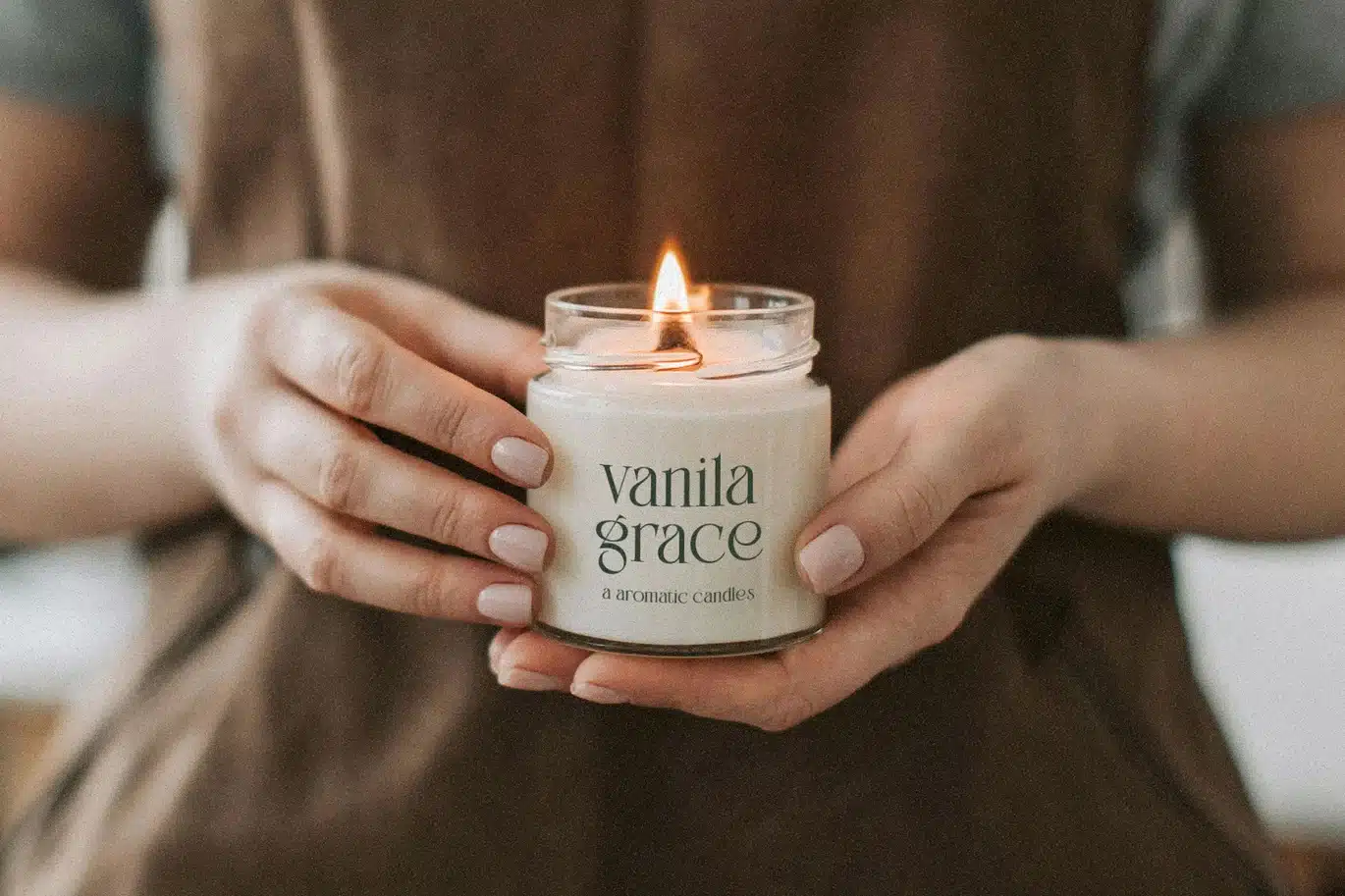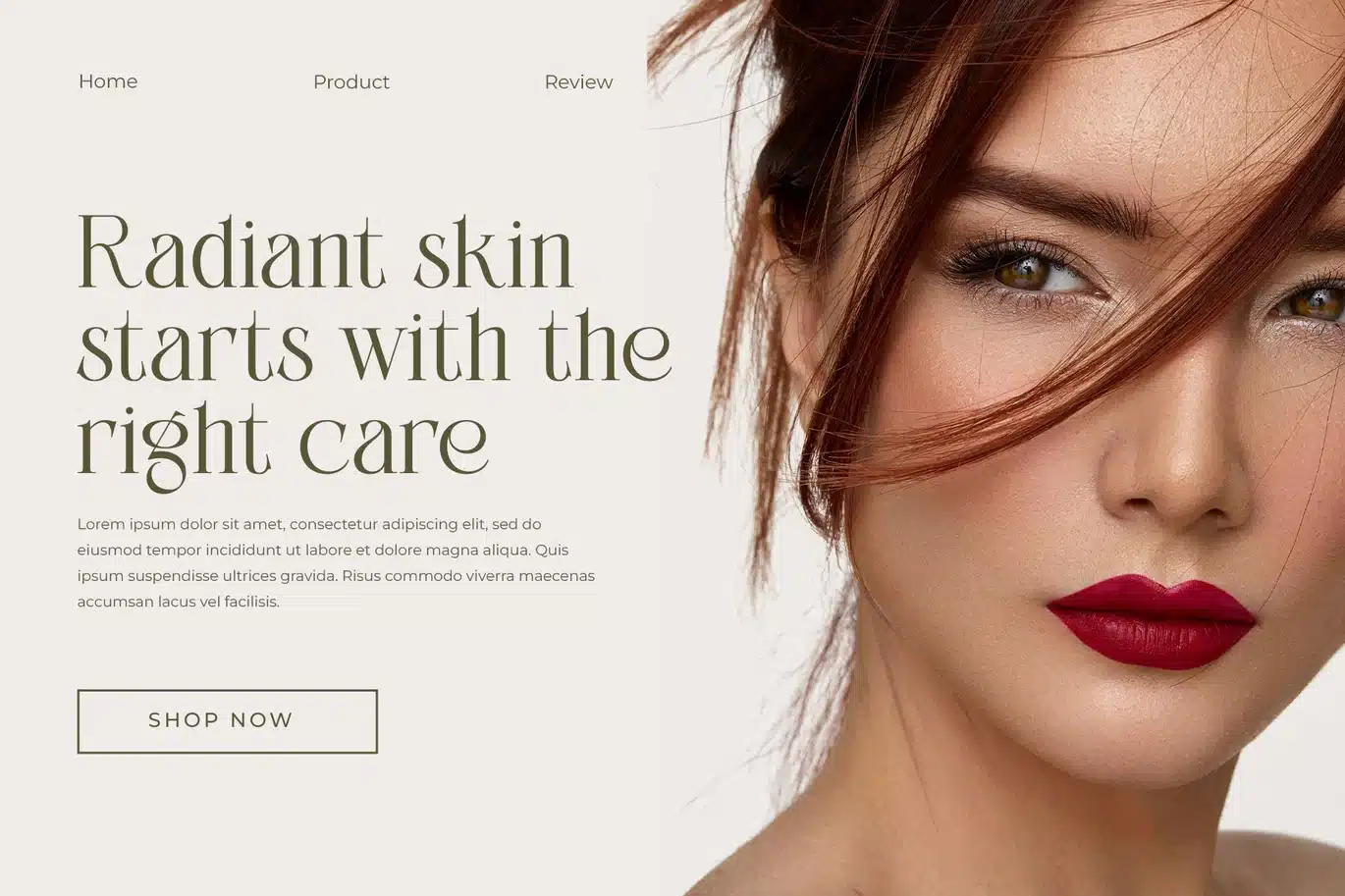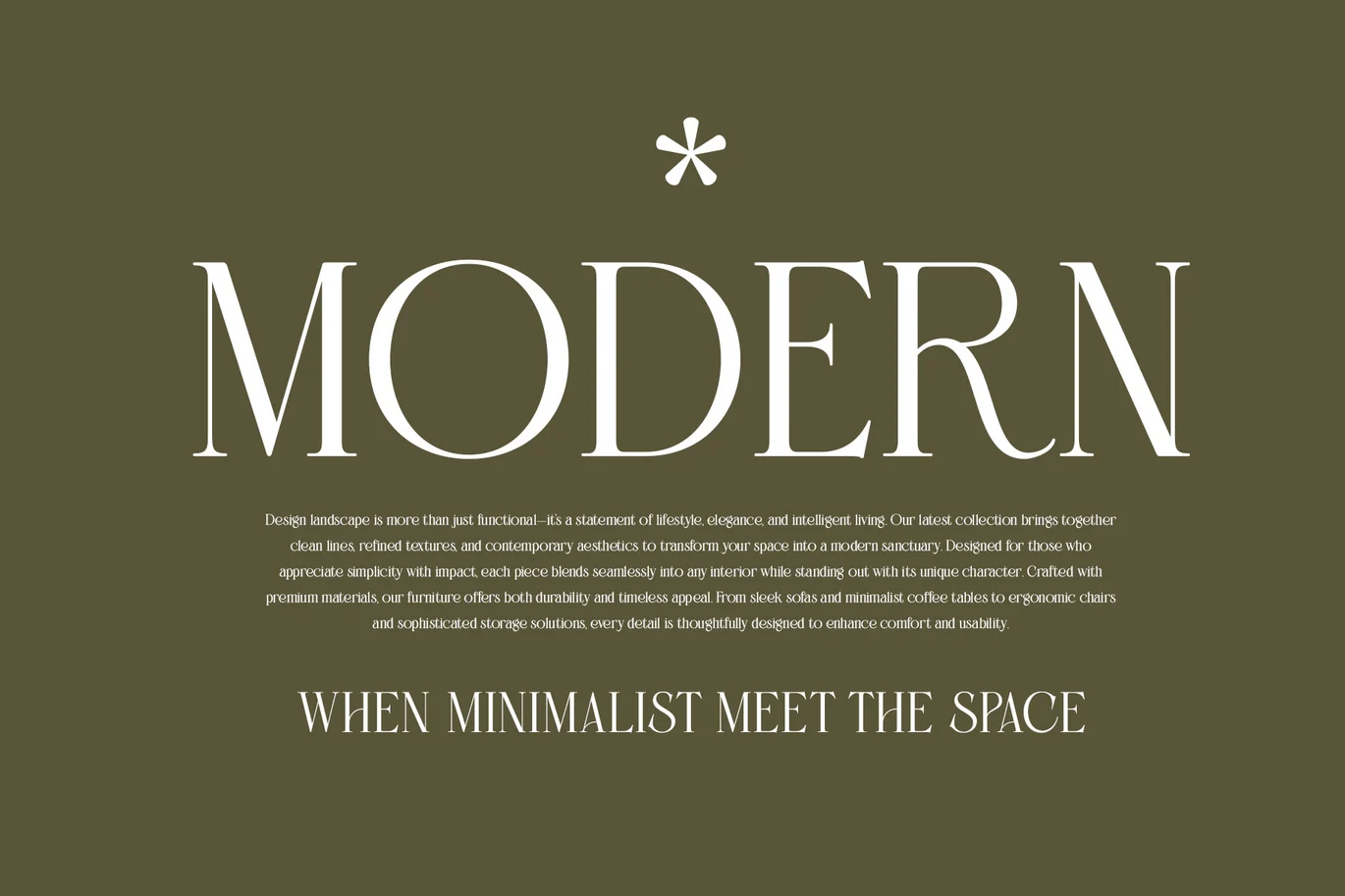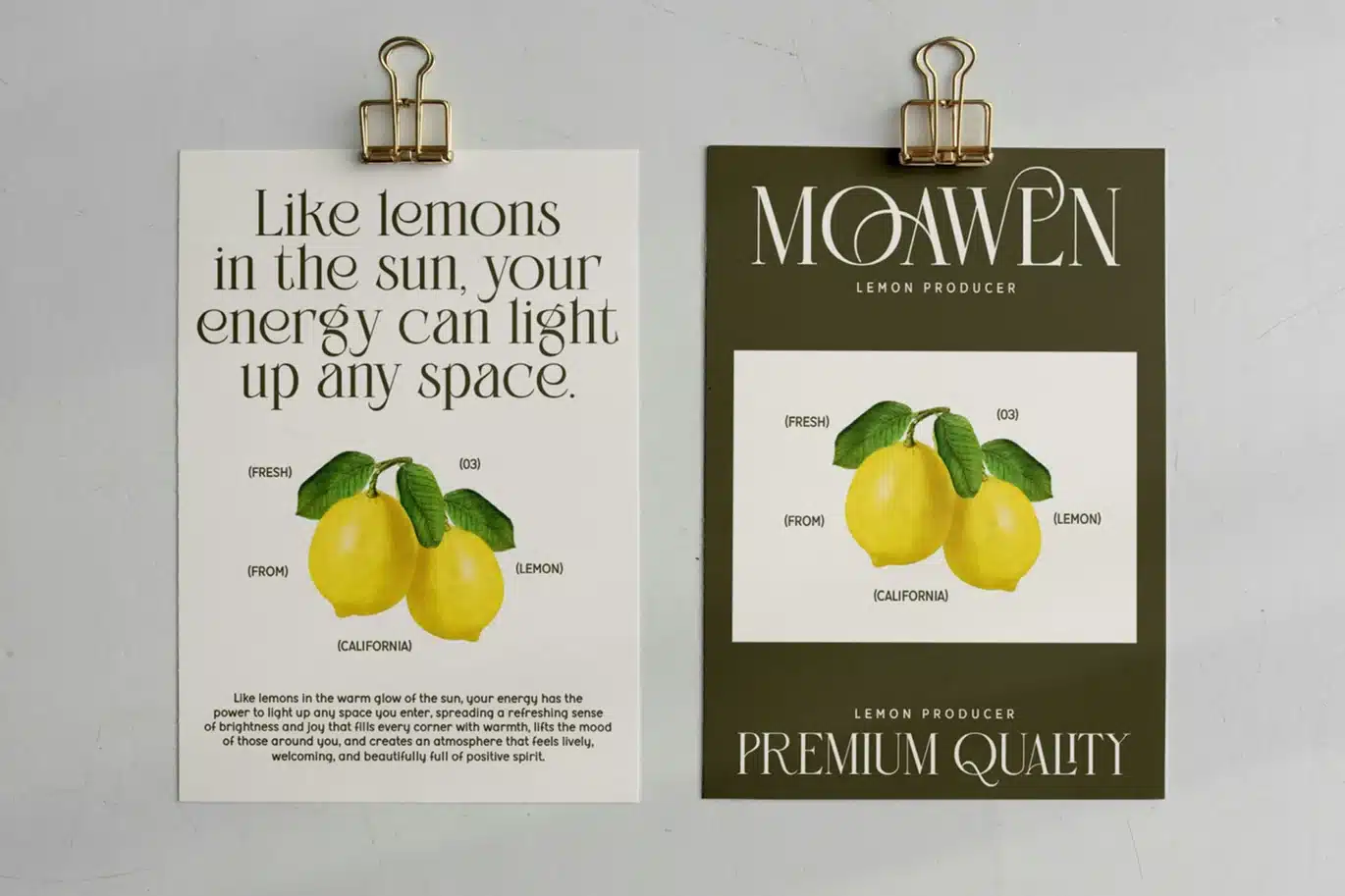
Rovelis Elegant Serif Font
Rovelis elegant serif font embodies sophistication, tradition, and timeless beauty, making it a cornerstone in the world of refined design. Rovelis is a perfectly choice for any creative endeavor, creating, modern, lifestyle design such as logotype, title, cover, branding, invitations, wedding designs, display and magazine, social media posts, advertisements, printed quotes, product packaging, corporate brand, product designs, labels, photography, watermarks, special events and any other project with elegant touch.